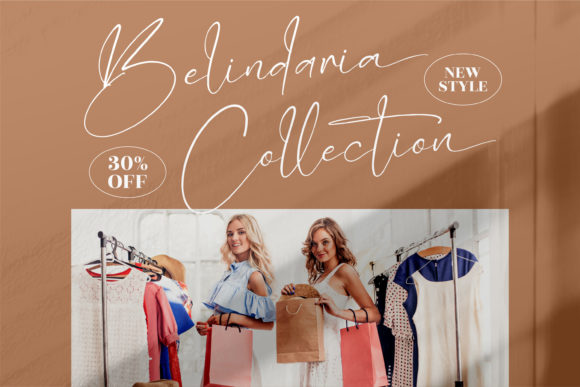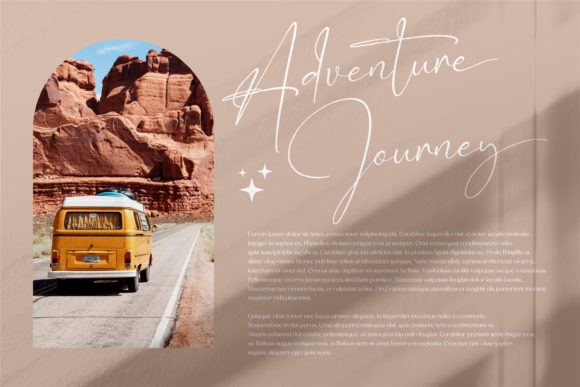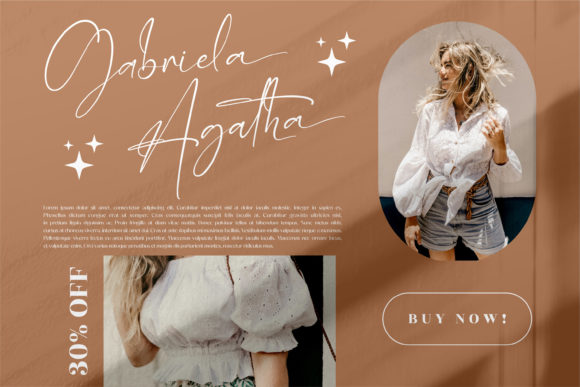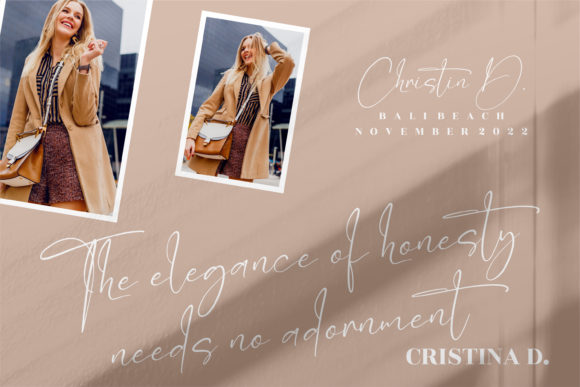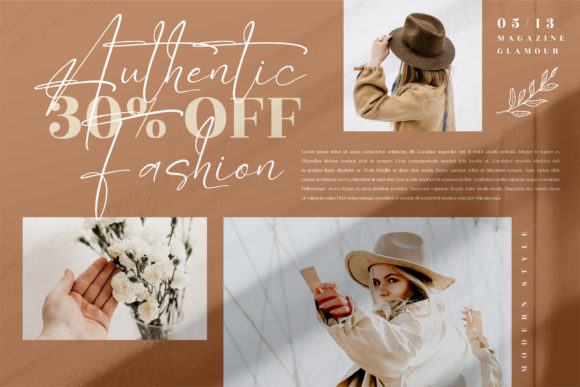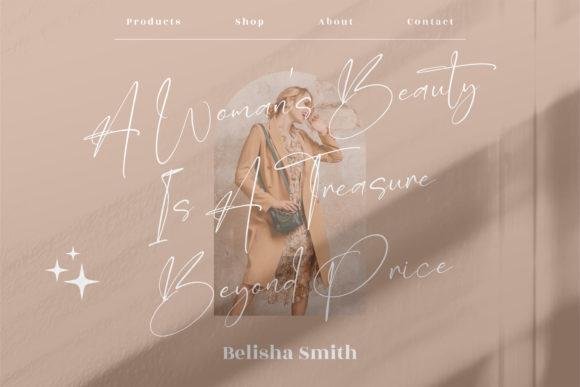
Discover the Elegance of Derlantica Beauty Font
In the world of typography, a new gem has emerged to capture the hearts of designers and crafters alike. Introducing Derlantica Beauty, a thin lettered and graceful script font that exudes elegance and sophistication. This stunning font is poised to become a favorite among creative professionals and enthusiasts, offering a versatile and beautiful way to add a touch of luxury to various design projects.
The Charm of Derlantica Beauty
Derlantica Beauty is more than just a font; it’s an experience. Its ravishing style is characterized by delicate, flowing lines and a refined aesthetic that instantly elevates any design. Whether you’re working on wedding invitations, stationery art, social media posts, or any other creative project, this font promises to add a dash of elegance and charm. The beauty of Derlantica lies in its ability to convey emotion and sophistication, making it the perfect choice for designs that require a personal touch.
Key Features of Derlantica Beauty
• Thin Lettered and Graceful Script: Derlantica Beauty boasts a unique, thin lettered style that gives it a graceful and airy feel, perfect for creating sophisticated designs.
• PUA Encoded: One of the standout features of Derlantica Beauty is its PUA (Private Use Area) encoding. This means that accessing all the glyphs and swashes is incredibly easy, offering designers a wide range of creative possibilities at their fingertips.
• Versatility: From gorgeous wedding invitations to beautiful stationery art and eye-catching social media posts, Derlantica Beauty’s versatility knows no bounds. It’s designed to meet the needs of various design projects, ensuring that your creations always stand out.
Applications of Derlantica Beauty
The applications of Derlantica Beauty are endless, limited only by your imagination. Here are a few ideas to get you started:
• Wedding Invitations: Create stunning wedding invitations that set the tone for a beautiful and memorable day. The elegant style of Derlantica Beauty ensures that your invitations are as special as the occasion.
• Stationery Art: Add a touch of sophistication to your stationery, making it perfect for personal correspondence or professional use.
• Social Media Posts: Make your social media posts stand out with the unique and captivating style of Derlantica Beauty. Whether you’re a blogger, influencer, or business owner, this font can help you connect with your audience in a more elegant and engaging way.
Why Choose Derlantica Beauty?
In a sea of fonts, Derlantica Beauty stands out for several reasons:
• Elegance: Its unique, thin lettered style offers a level of elegance that’s hard to find elsewhere.
• Versatility: The font’s adaptability makes it suitable for a wide range of design projects.
• User-Friendly: Being PUA encoded, it offers ease of use, allowing designers to focus on creativity rather than technicalities.
Derlantica Beauty is not just a font; it’s a design experience. Its graceful script, combined with PUA encoding for easy access to glyphs and swashes, makes it an invaluable tool for designers and crafters. Whether you’re aiming to create breathtaking wedding invitations, captivating social media posts, or elegant stationery art, Derlantica Beauty is your go-to font. Embrace its elegance and let it transform your designs into works of art that leave a lasting impression.